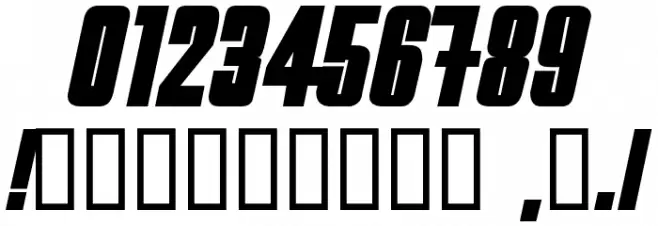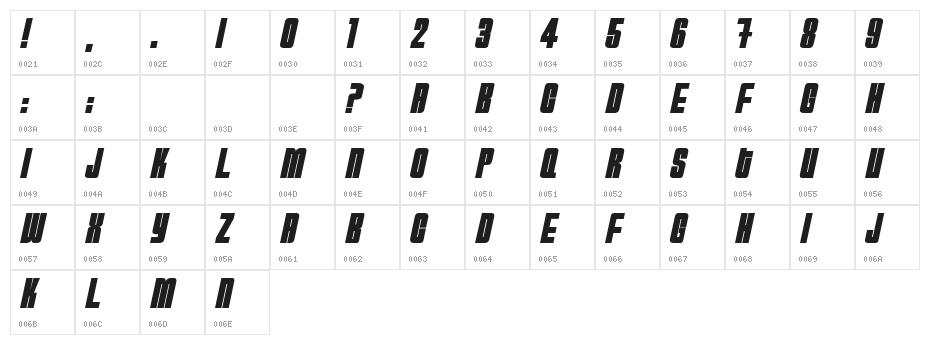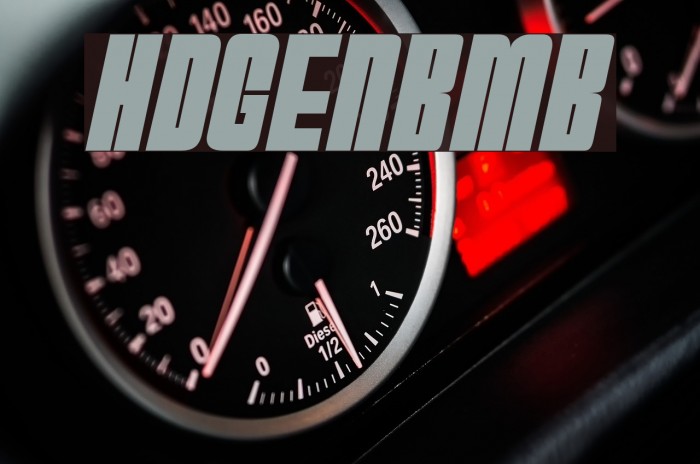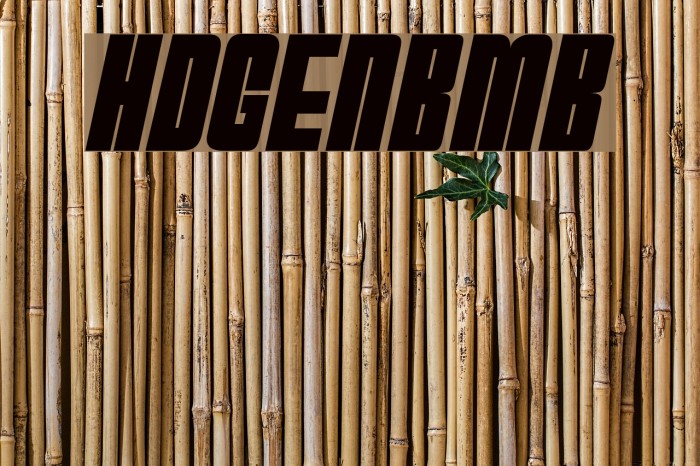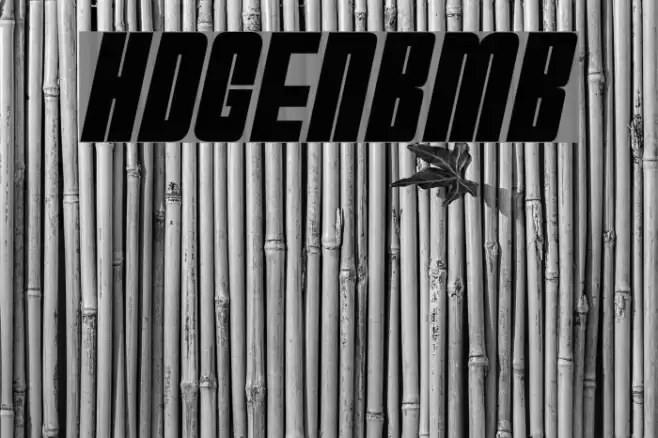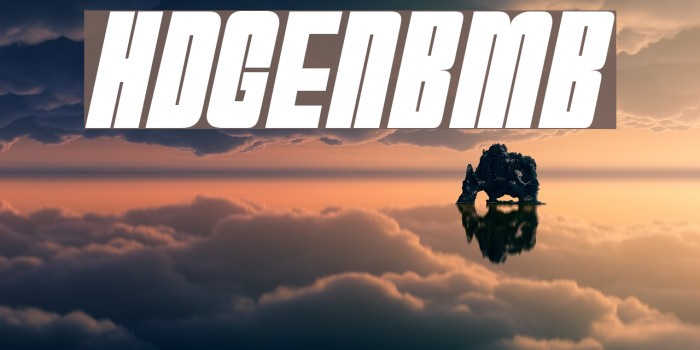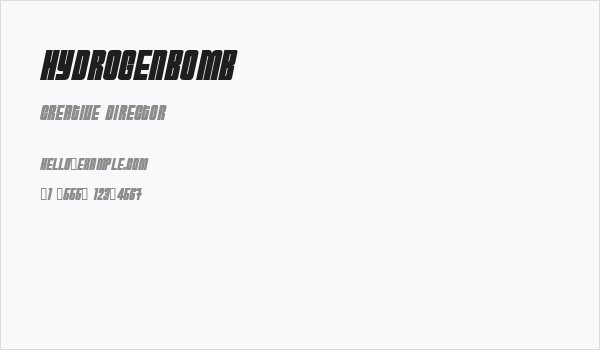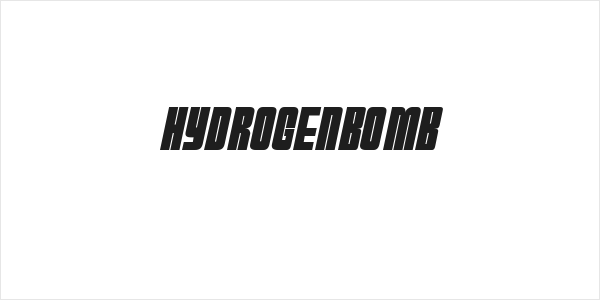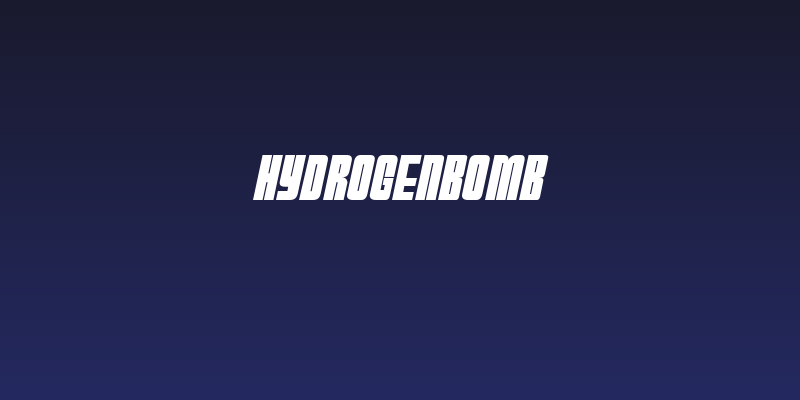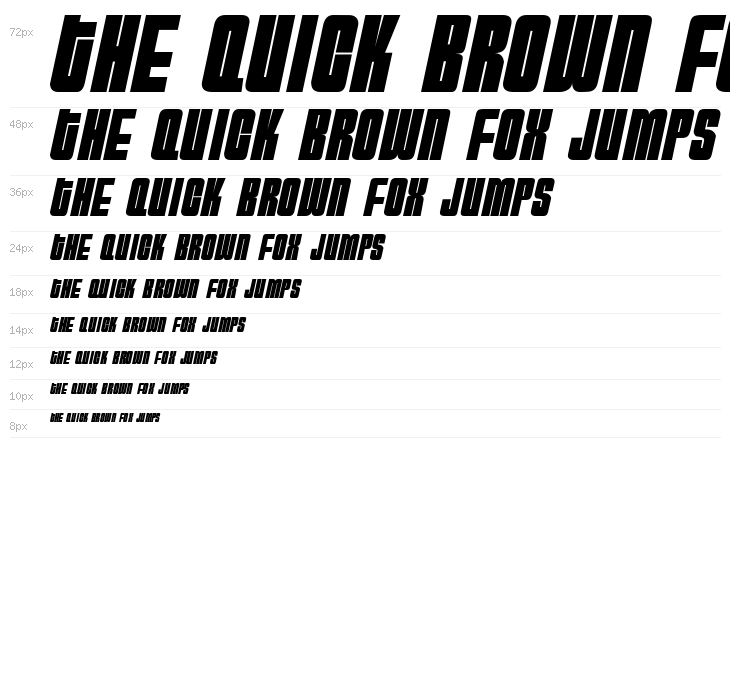
HydrogenBomb Font
HydrogenBomb Description
This font features a bold and dynamic style with a strong presence. The characters are designed with a forward-leaning slant, giving them a sense of motion and energy. The strokes are thick and consistent, providing a robust and impactful appearance. The uppercase letters are particularly striking, with sharp angles and a slightly condensed form that enhances their boldness. The numerals and special characters maintain the same bold aesthetic, ensuring consistency across all elements. This font is ideal for projects that require a strong visual impact and a modern, edgy feel.